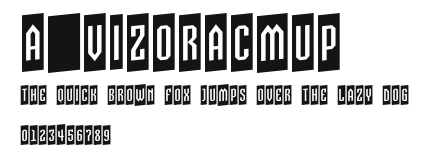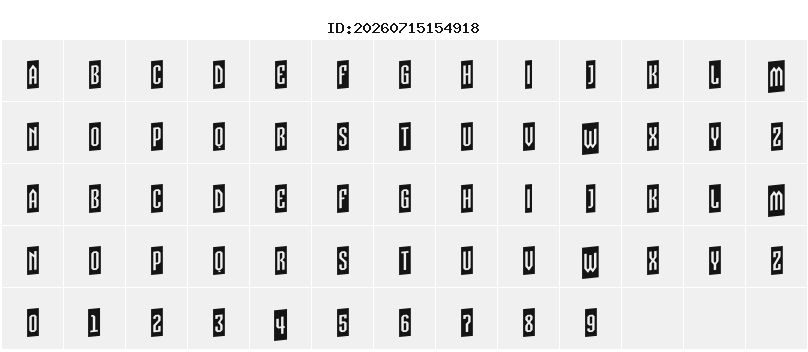
a_VizoraCmUp Preview
• Font Name: a_VizoraCmUp
• Full Font Name: a_VizoraCmUp
• Designer: W.Chufarofsky & M.Slutsker
About a_VizoraCmUp.ttf
a_VizoraCmUp.ttf is a modern, elegant sans-serif font designed for ultimate readability and visual harmony. Perfect for branding, headlines, web design, and print materials.